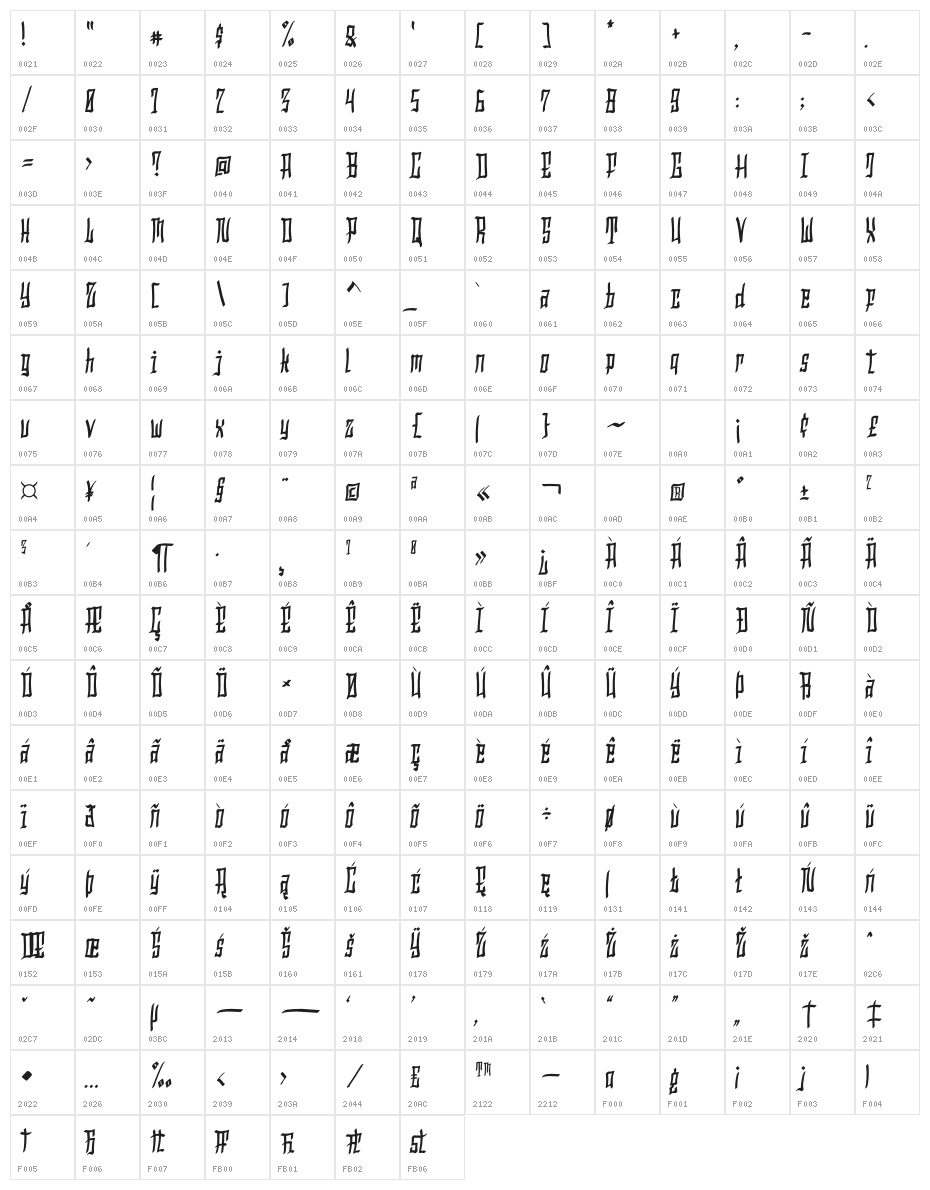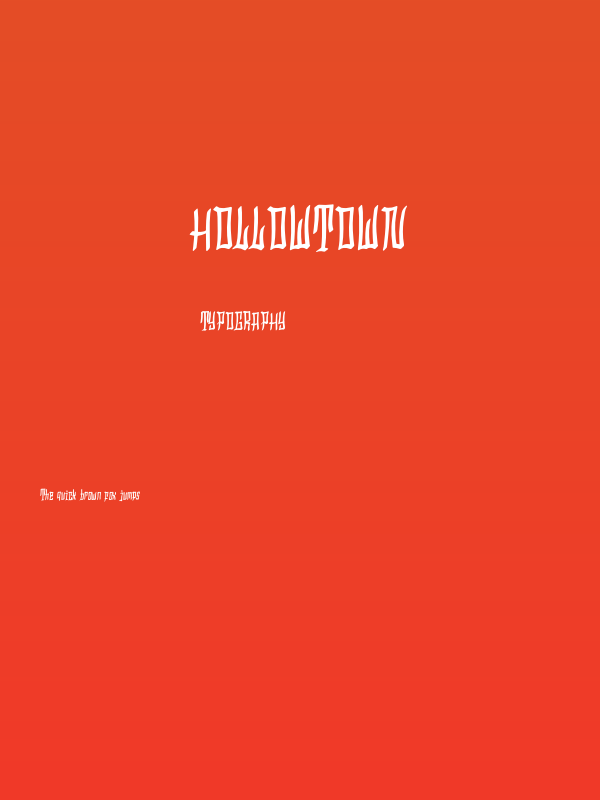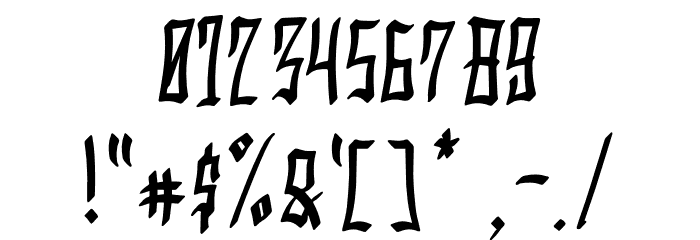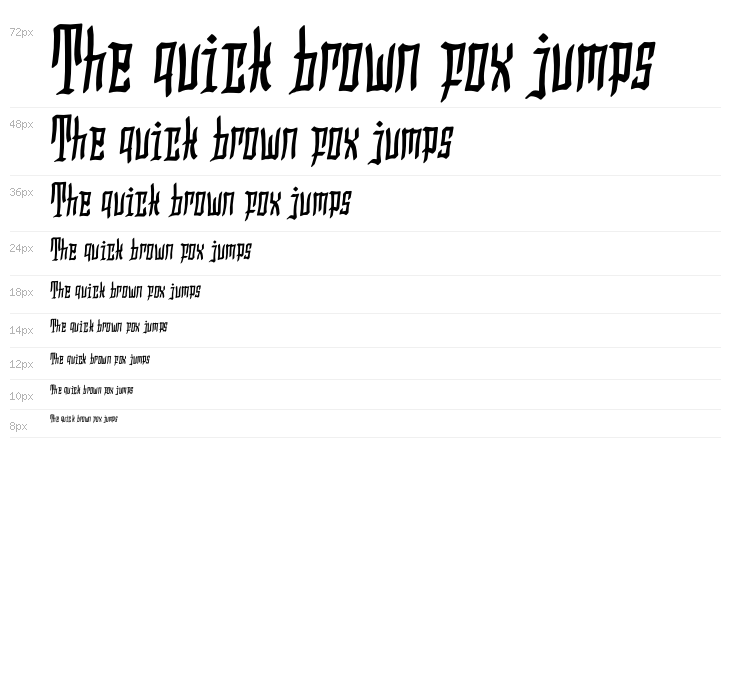
Hollowtown Font
✎ Gothic
Hollowtown Description
This font features a bold and angular design with a distinct gothic influence. The characters are elongated with sharp edges and pointed terminals, giving it a dramatic and intense appearance. The uppercase letters are particularly tall and narrow, while the lowercase letters maintain a consistent style with slightly more rounded forms. Numbers and special characters follow the same stylistic cues, ensuring a cohesive look across all glyphs. The font's unique style makes it stand out, ideal for projects that require a strong visual impact.
| Categories | Gothic |
| Width | Condensed |
| Overall Style | Gothic, Dramatic |
| Proposed Projects | Ideal for use in posters, album covers, video game titles, and any project requiring a bold, gothic aesthetic. |